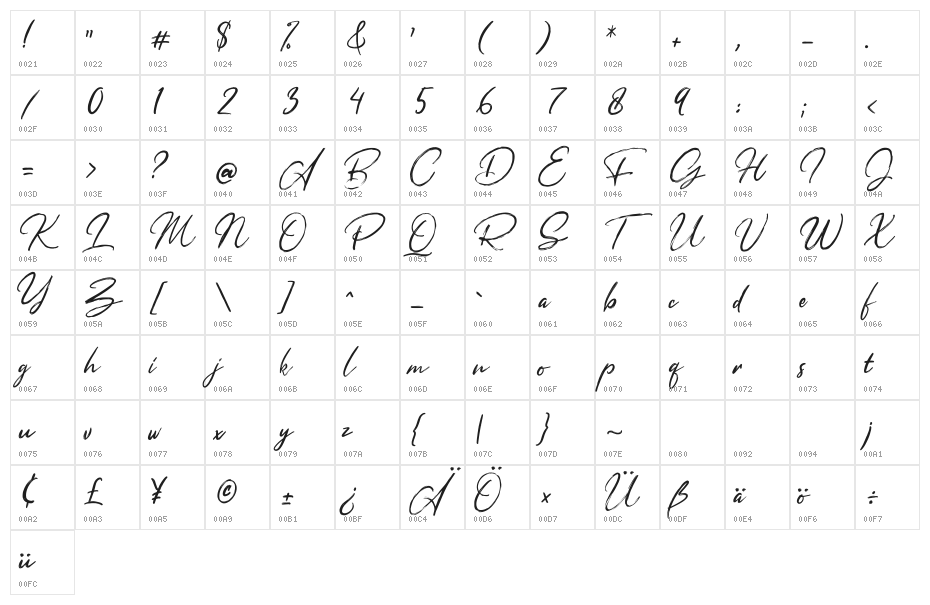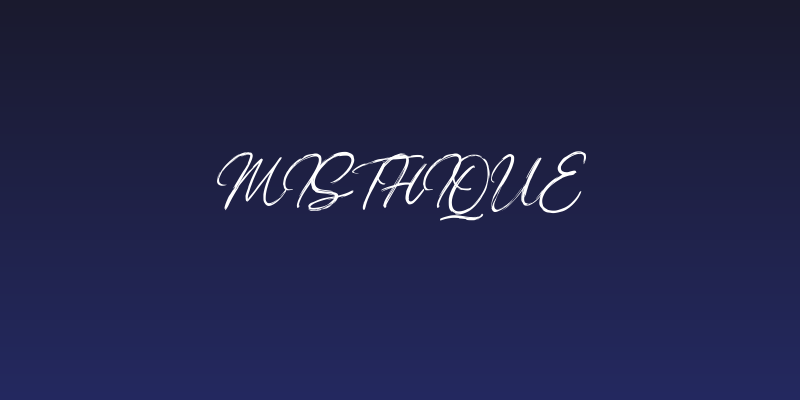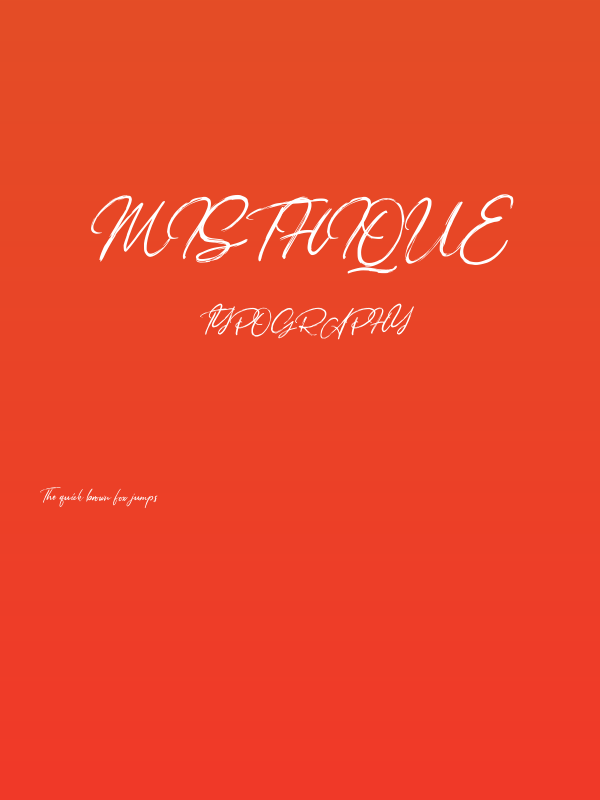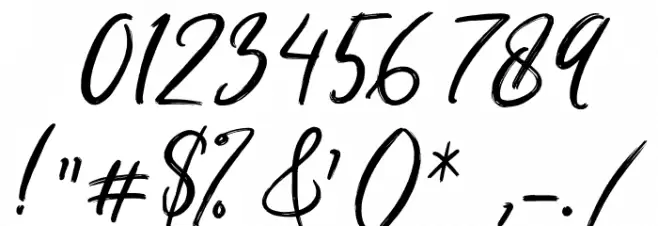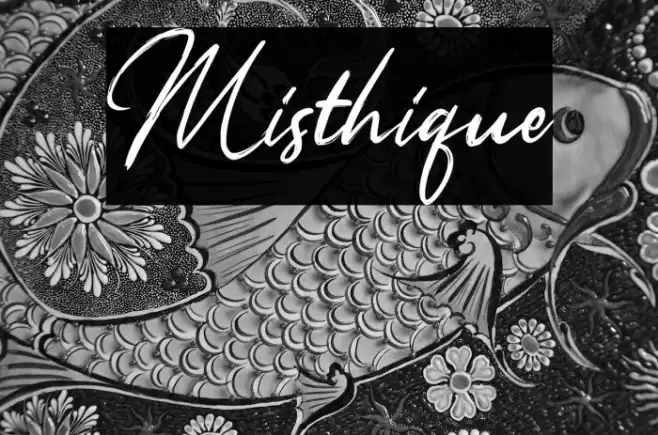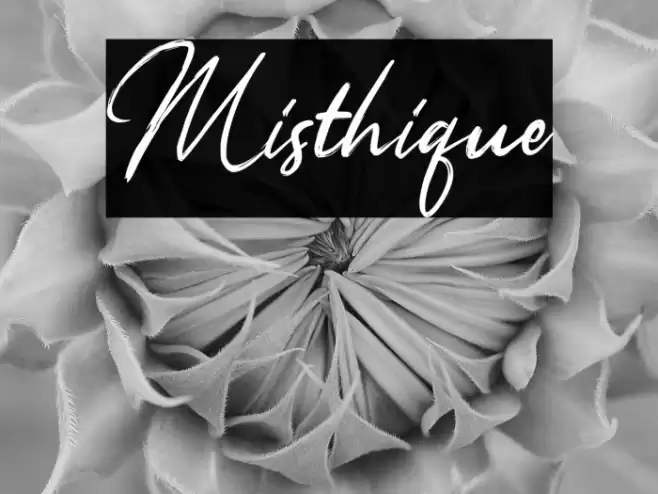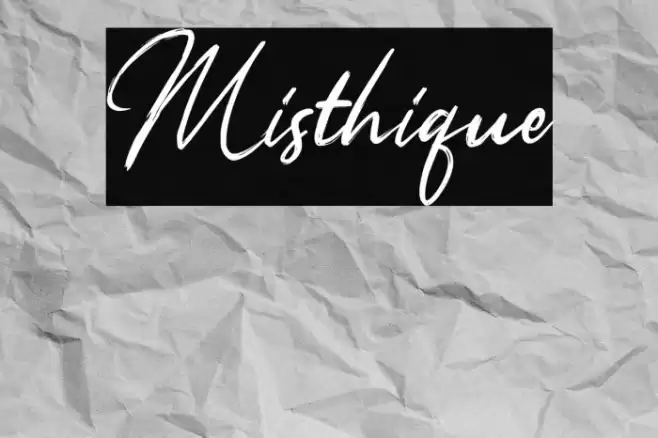
Misthique Font
Misthique Description
This font exudes a sense of elegance and fluidity, characterized by its cursive, handwritten style. The letters are connected in a flowing manner, creating a seamless and sophisticated appearance. The strokes vary in thickness, adding a dynamic and lively feel to the text. The uppercase letters are bold and prominent, while the lowercase letters maintain a graceful continuity. Numbers and special characters are designed with the same flowing style, ensuring consistency throughout. This font is perfect for projects that require a touch of elegance and personal flair.
| Proposed Projects | Ideal for wedding invitations, personal branding, greeting cards, and elegant logos. |